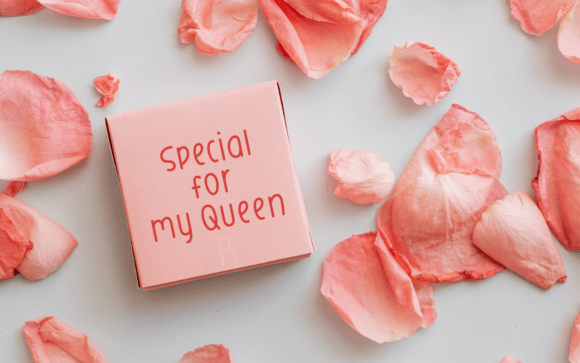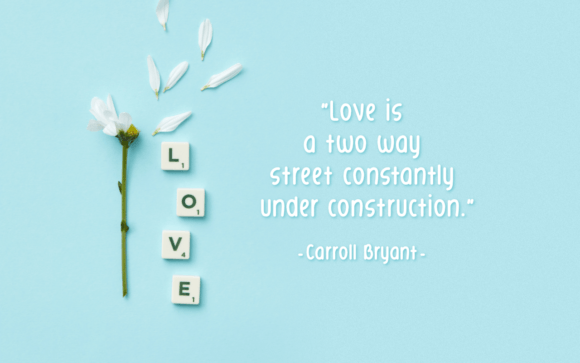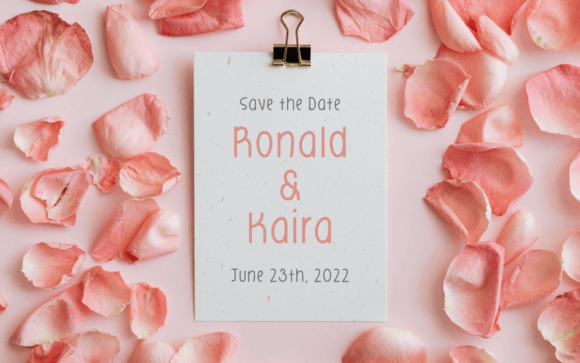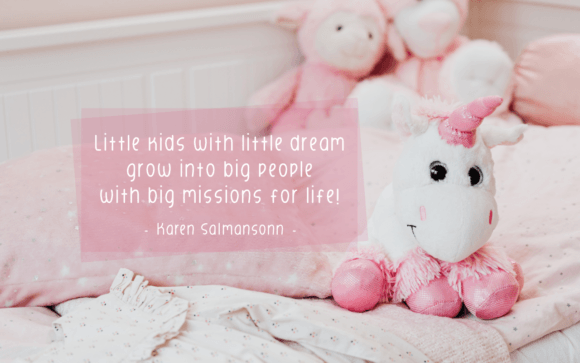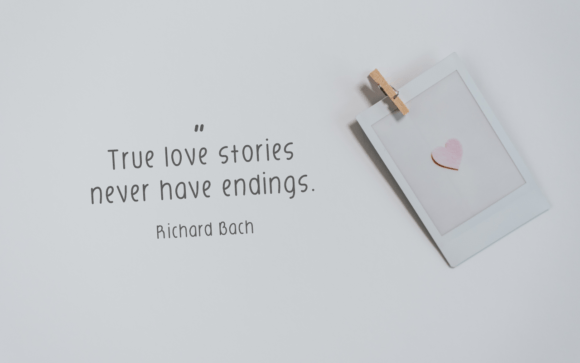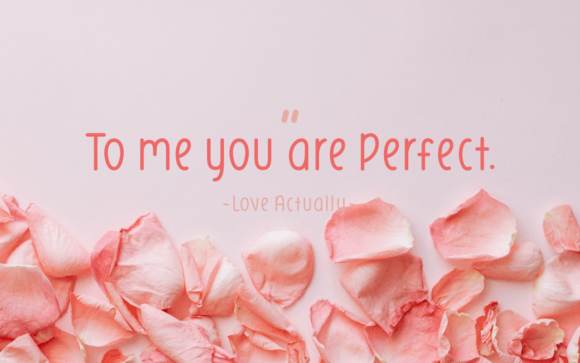
Introduction to Shining Love Font
Shining Love is an enchanting handwritten font.
This versatile script font has a wide spectrum of applications, ranging from greeting cards to headlines, and is guaranteed to add a romantic feel to your next project .
Key Features of Shining Love Font